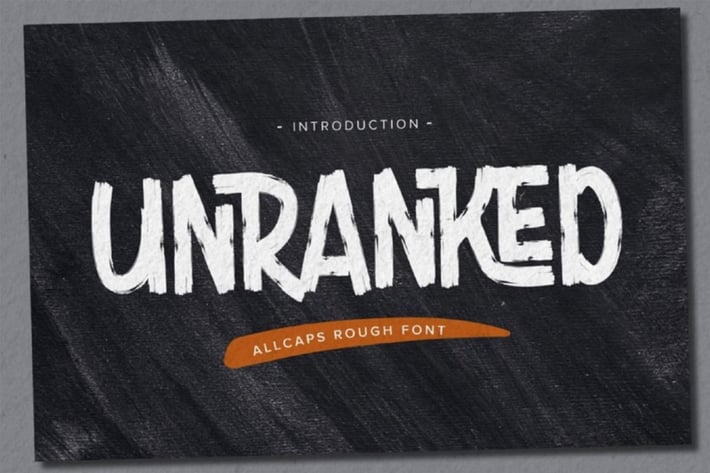
Unranked - All Caps Rough Font
Here comes our new font Unranked this is a sans handwritten that is written casually and quickly.
this font are made with brushes on Procreate. Then crafted carefully drawn into vector format.
That is why Unranked has Rough and strong characteristic more natural look to your text with a more modern look to your text.
You can activate Ligature OpenType panel to make these two styles.
Unranked is perfect for homeware designs,branding projects, Logo design, Quotes product packaging